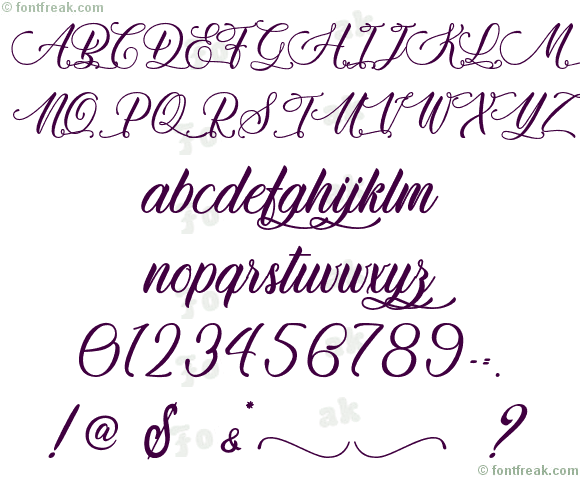
Qwerty Ability - Personal Use
Qwerty Ability - Personal Use is a beautifully crafted script font designed by Suthi Srisopha, perfect for those seeking an elegant touch in their projects. This font falls into the category of decorative script, characterized by its flowing letterforms and graceful curves. The stroke weight is varied, adding a dynamic contrast that captures the eye, while the spacing between characters is carefully balanced to ensure readability without sacrificing style. The decorative elements in the font, such as the playful swashes and curls, lend an artistic flair that makes it a standout choice for creative endeavors.
This font is particularly well-suited for a variety of applications, including wedding invitations that call for a romantic and sophisticated aesthetic, personal stationery that requires a unique touch, and even restaurant menus that aim to evoke a sense of elegance. Additionally, it can enhance branding materials for small businesses wanting to convey a friendly yet professional image. Graphic designers and content creators will find Qwerty Ability - Personal Use font free download to be a valuable asset in their toolkit, as its versatility allows for seamless integration into various design projects.
The target audience for this font includes graphic designers, small business owners, and anyone looking to add a personal touch to their digital creations. Its charm and elegance make it an ideal choice for those who appreciate artistic elements in typography. What truly sets Qwerty Ability apart is its ability to convey emotion through its flowing forms, making it not just a font, but a means of expression. Whether used in formal or casual contexts, it brings a sense of warmth and creativity that is sure to resonate with viewers.